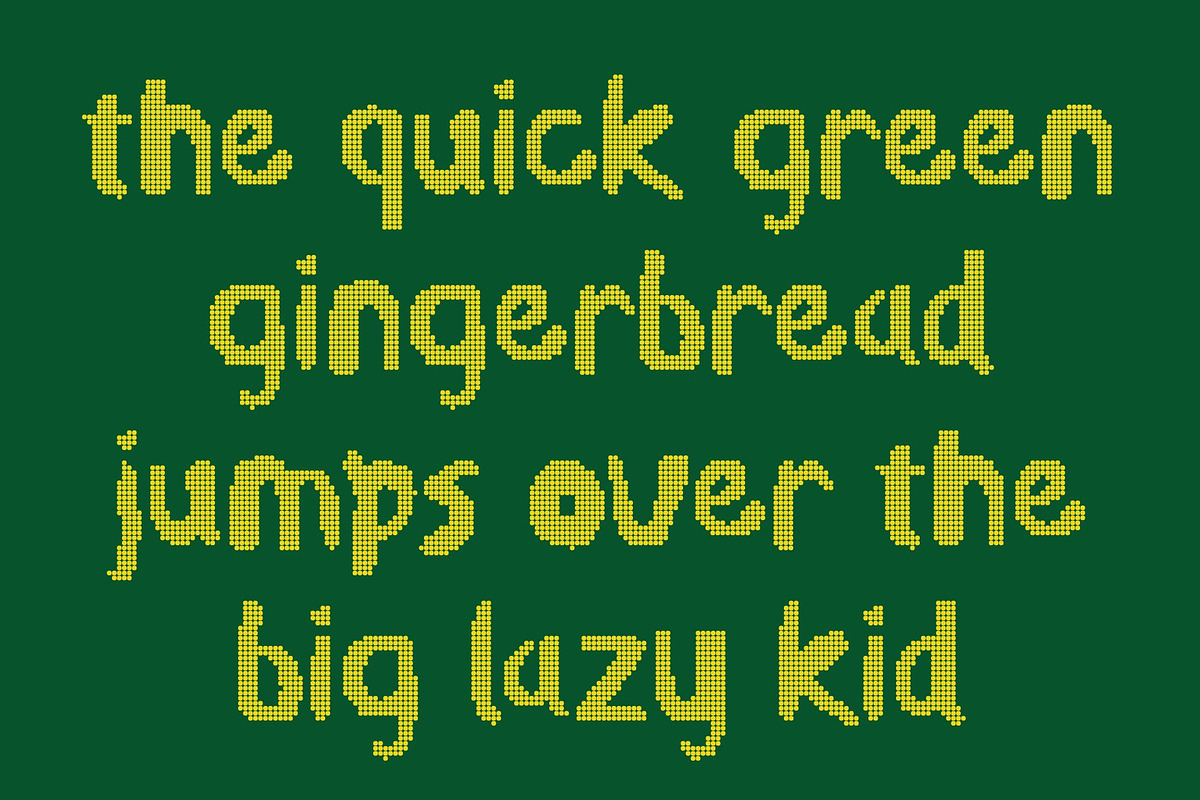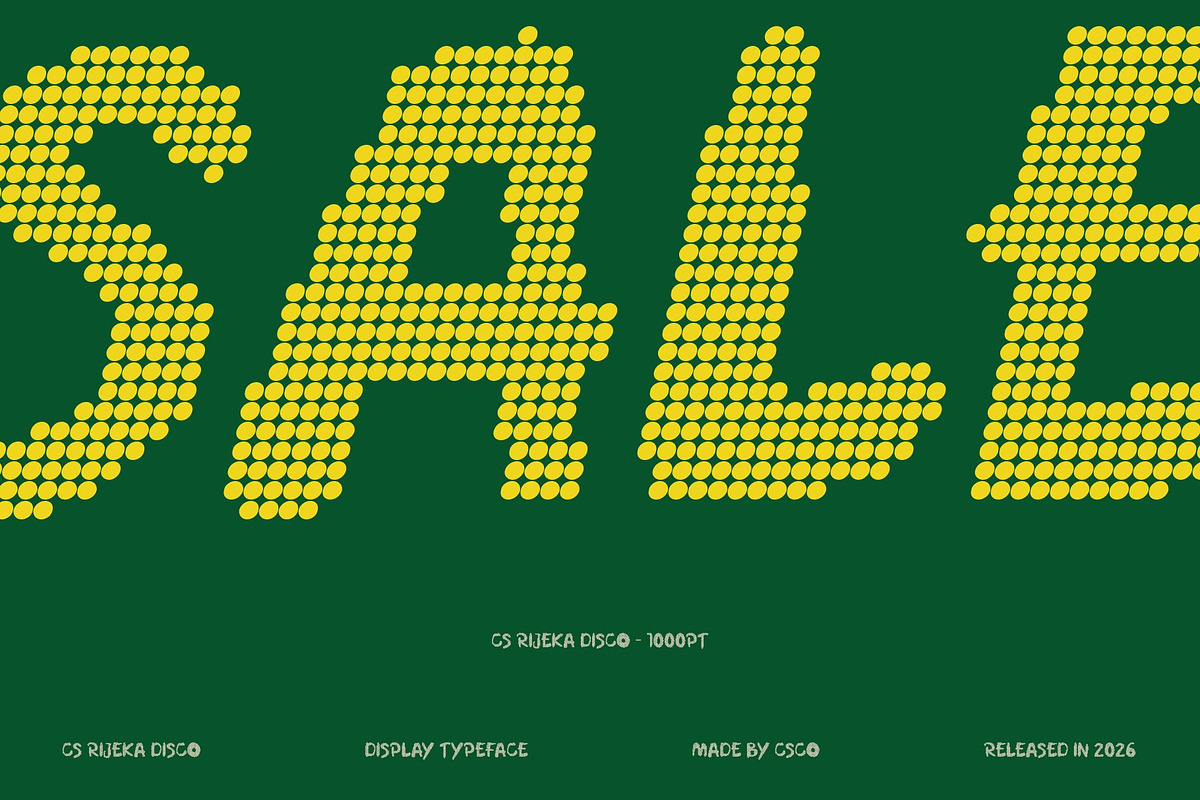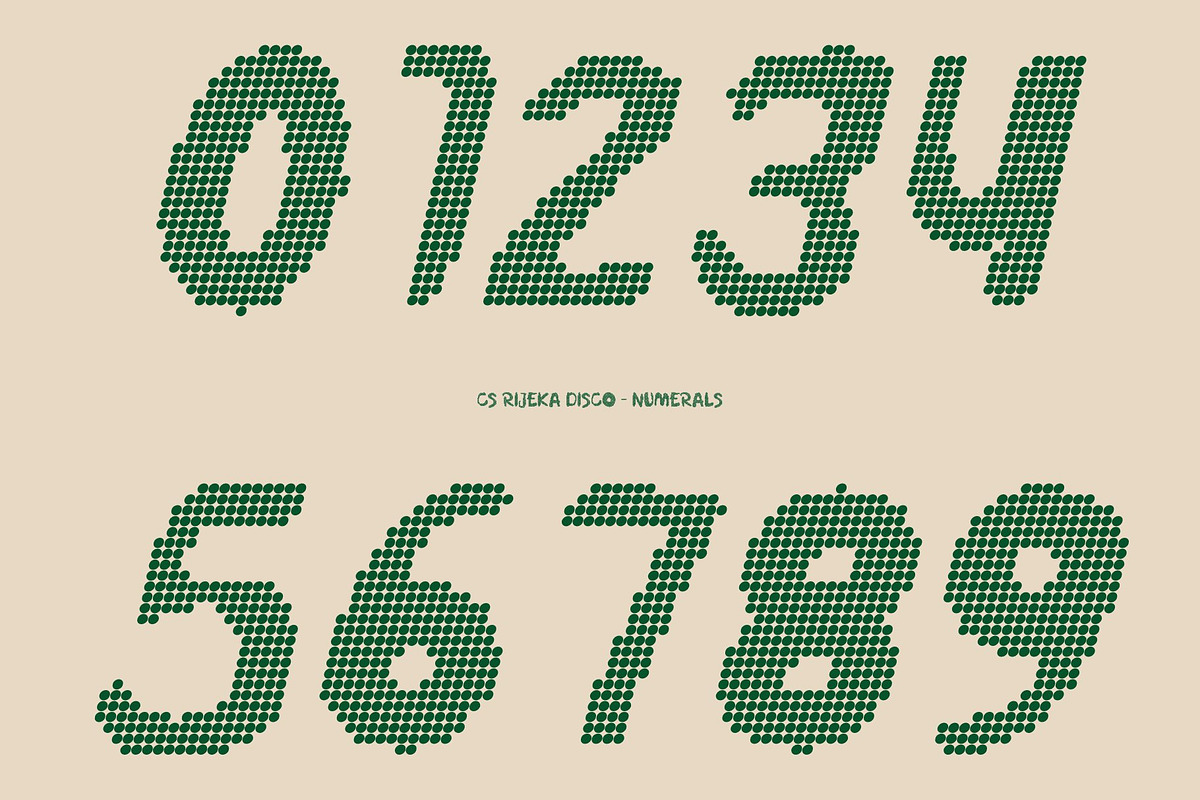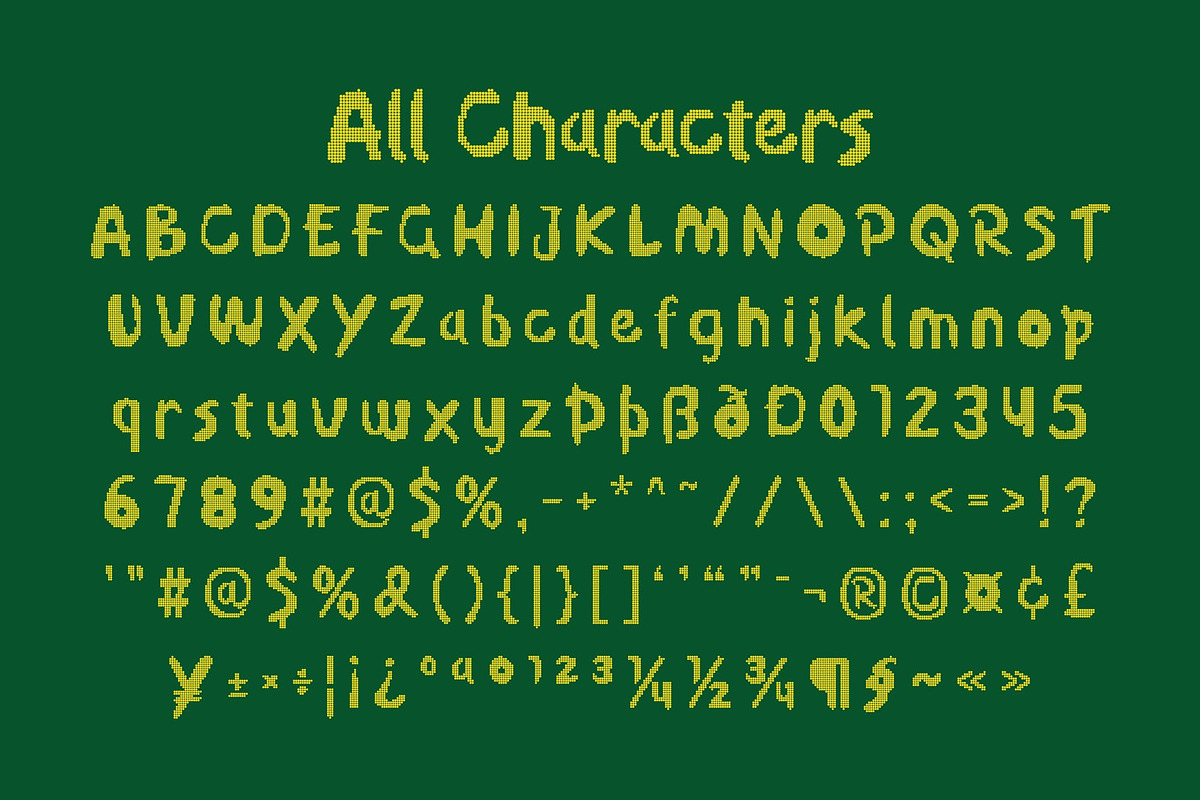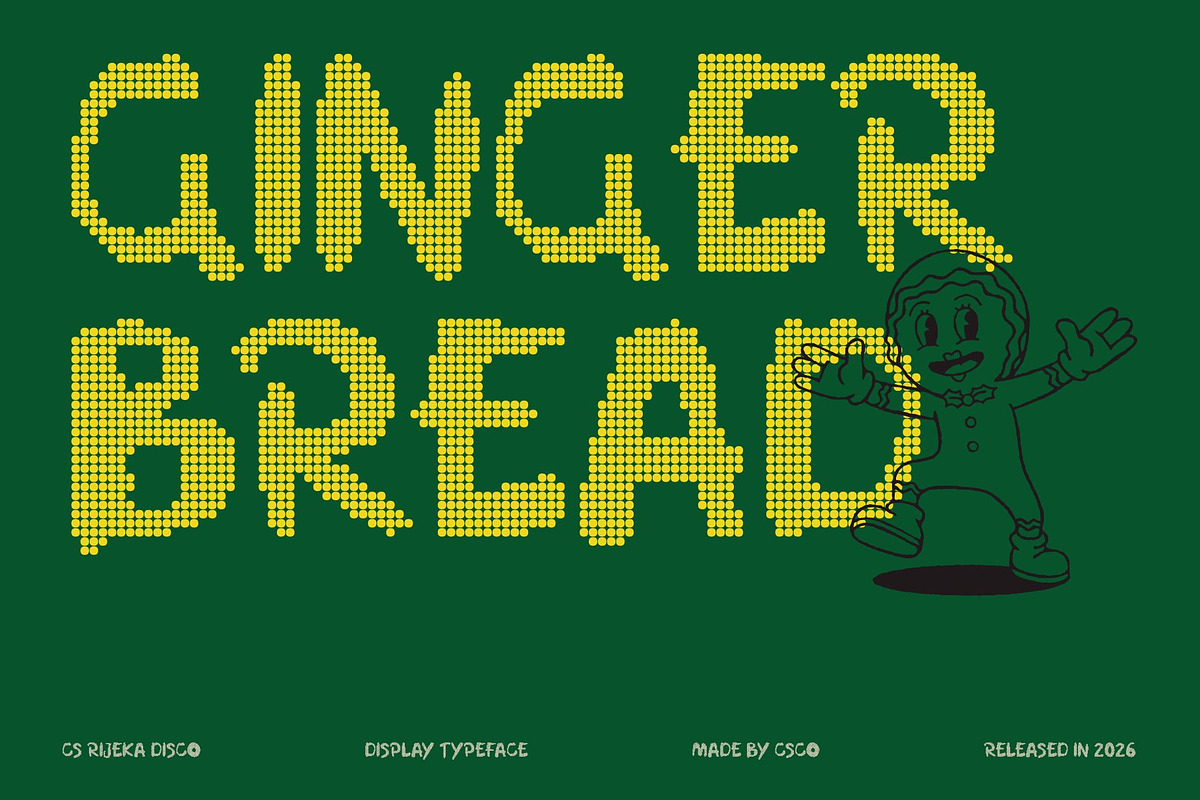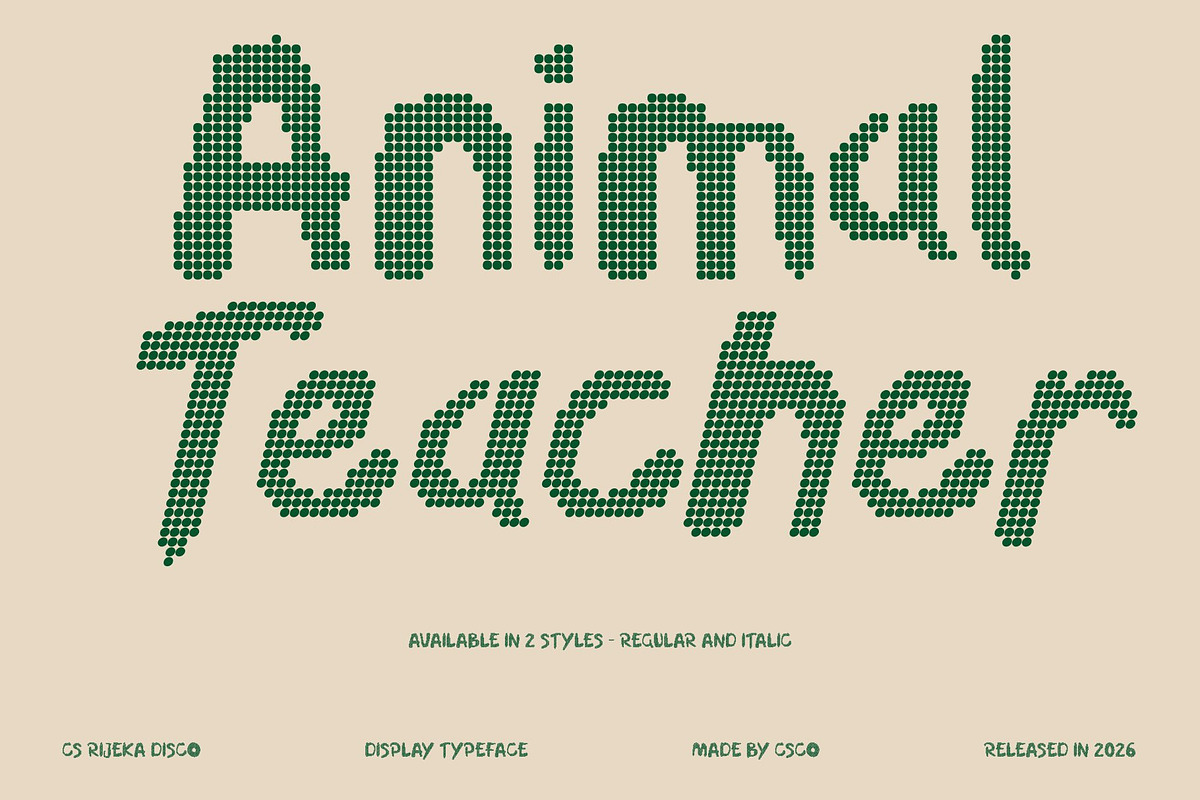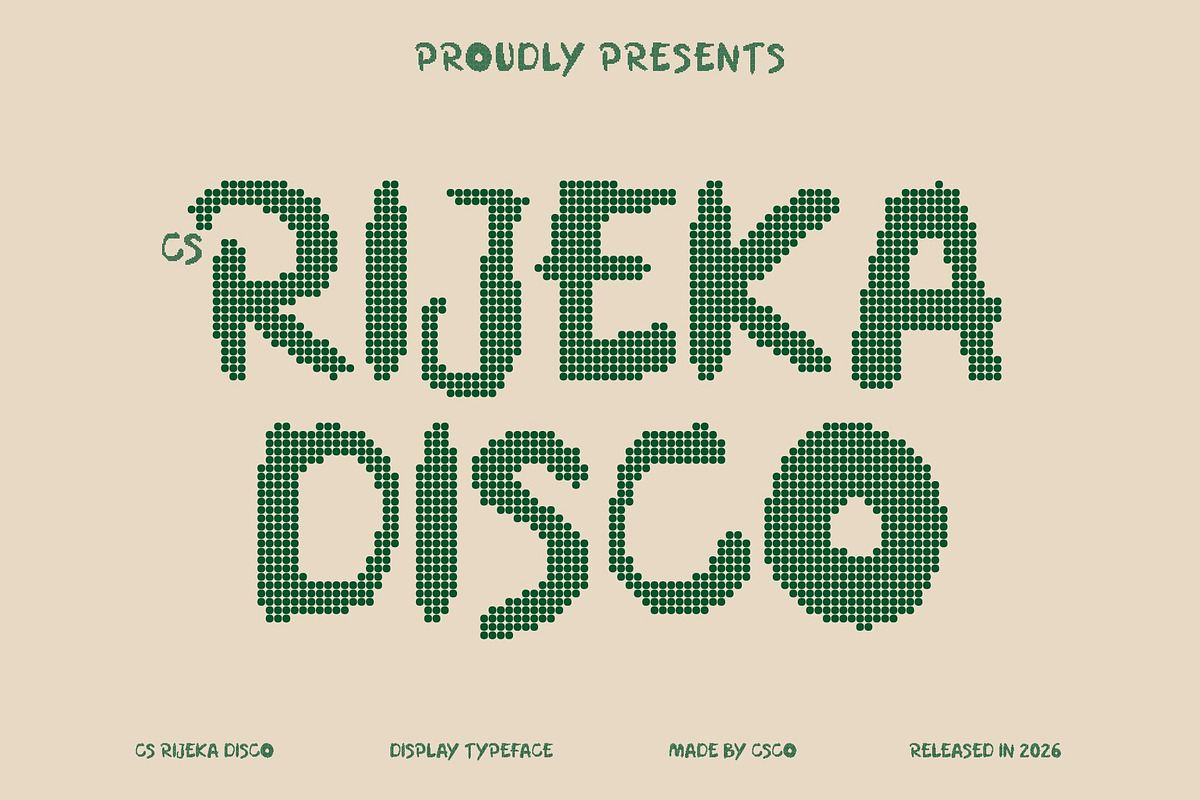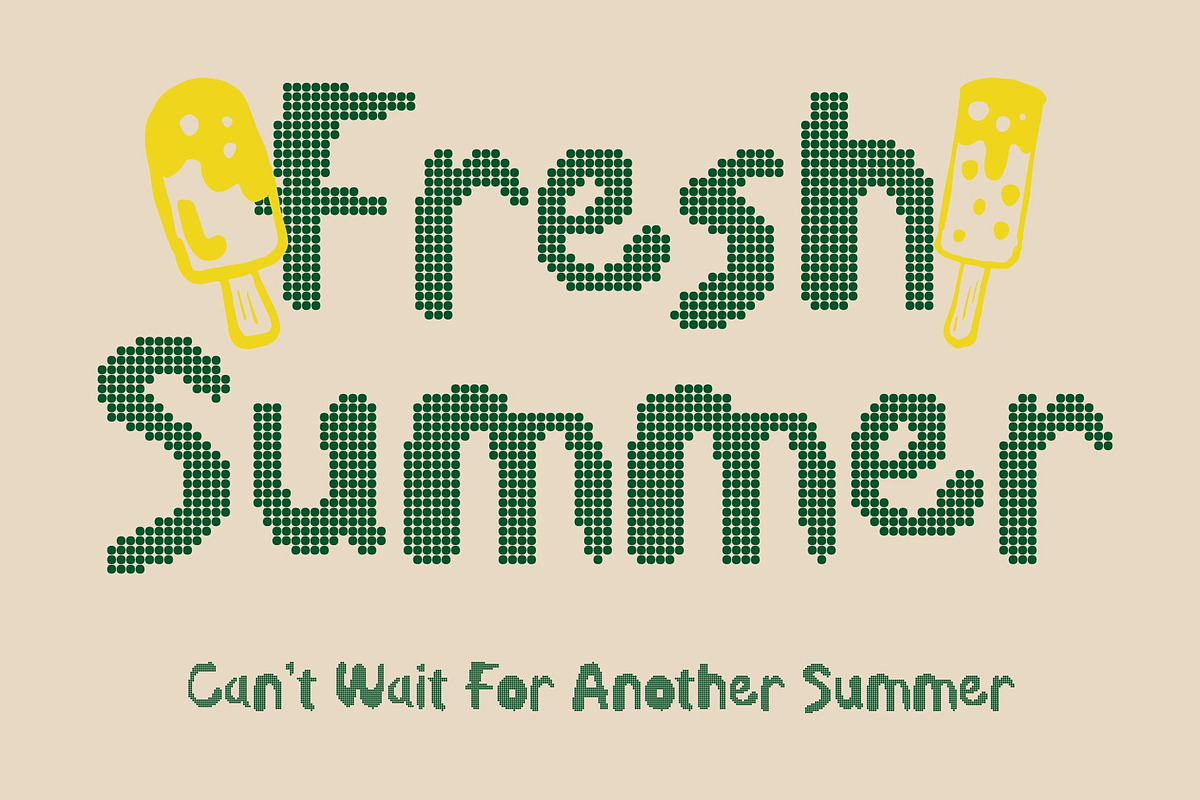
CS Rijeka Disco
CS Rijeka Disco – Handdrawn Dot Font with Playful Glam
Fun and Lively Handwritten Energy This transforms the original handdrawn font into a dotted display style that mirrors the sparkle, rhythm, and dynamism of the dance floor. Each letter is built from small circular dots, giving it a playful, almost confetti-like personality. The font keeps its casual, relaxed charm while amplifying fun and visual excitement.
Cheerful and Playful Character With slightly abstract, hand-drawn shapes, this dotted version preserves the spontaneity of the original scribbles while adding disco-inspired flair. The dots create a rhythmic visual effect, evoking movement, joy, and party lights, making text feel energetic, whimsical, and instantly engaging.
Perfect for Youthful and Creative Projects Ideal for posters, kids’ party invitations, playful branding, social media graphics, or event promotions, this font brings a bold yet approachable personality. Its cheerful, dotted aesthetic makes it perfect for headlines, quotes, or decorative type that needs to pop and delight audiences.
Adds Sparkle and Character This version of this font acts as a fun, complementary font for more structured designs. Paired with clean sans-serifs or solid display fonts, it adds a sense of whimsy, charm, and disco-era joy. Every word looks festive, energetic, and full of movement, capturing the essence of playful hand-drawn typography in a modern, party-ready style.
CS Rijeka Disco Regular
CS Rijeka Disco Italic